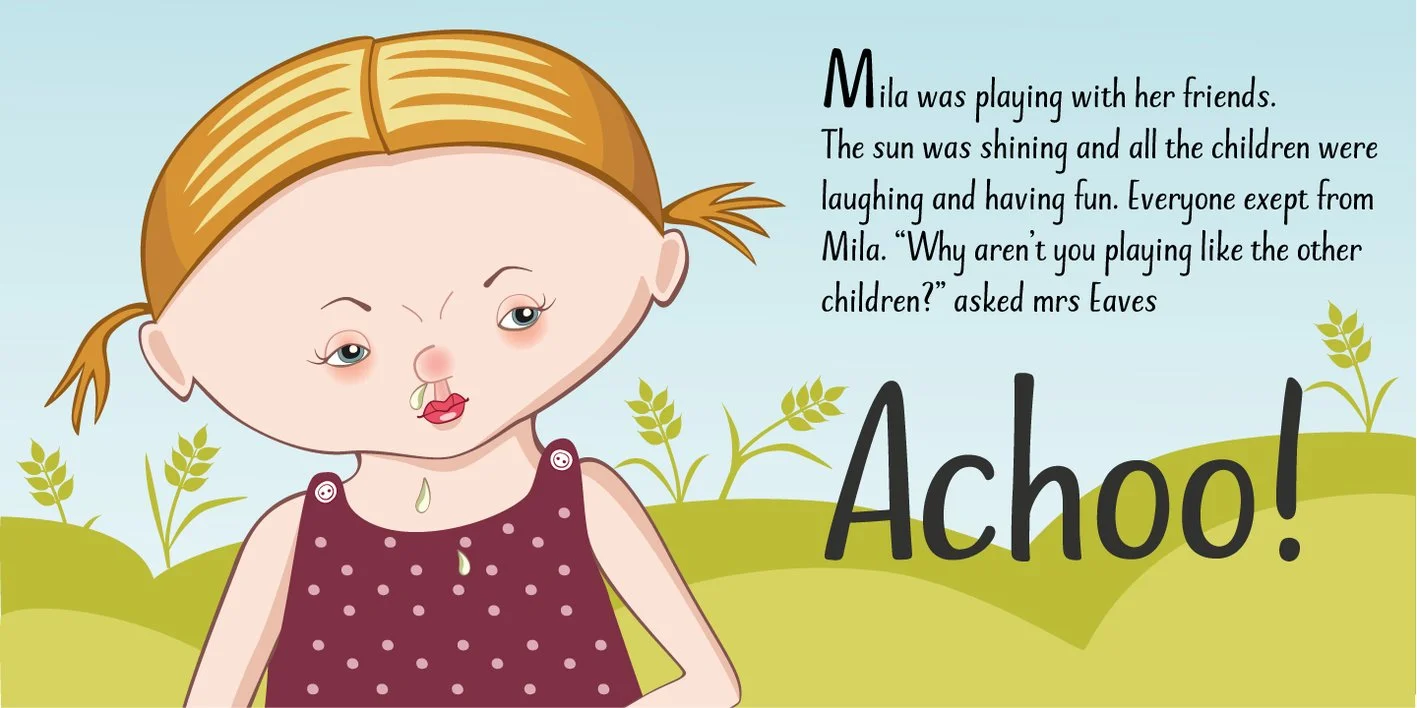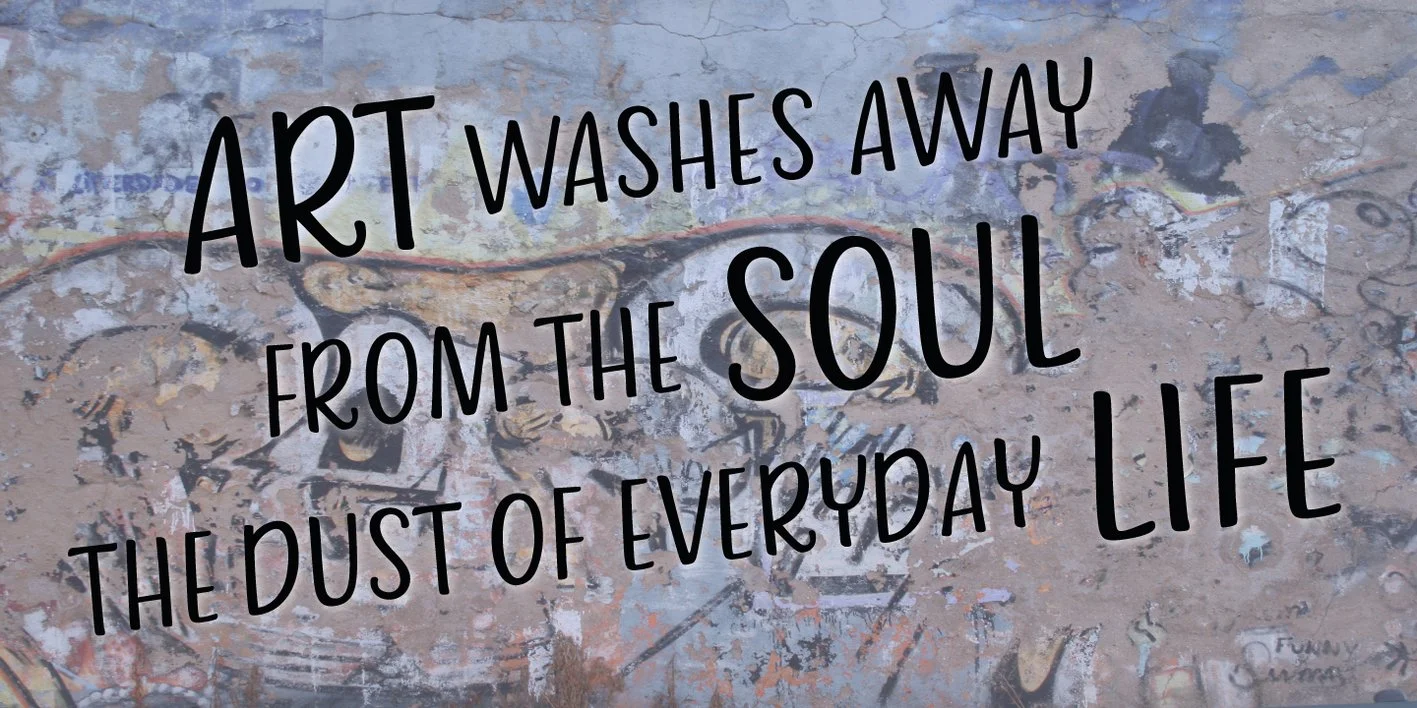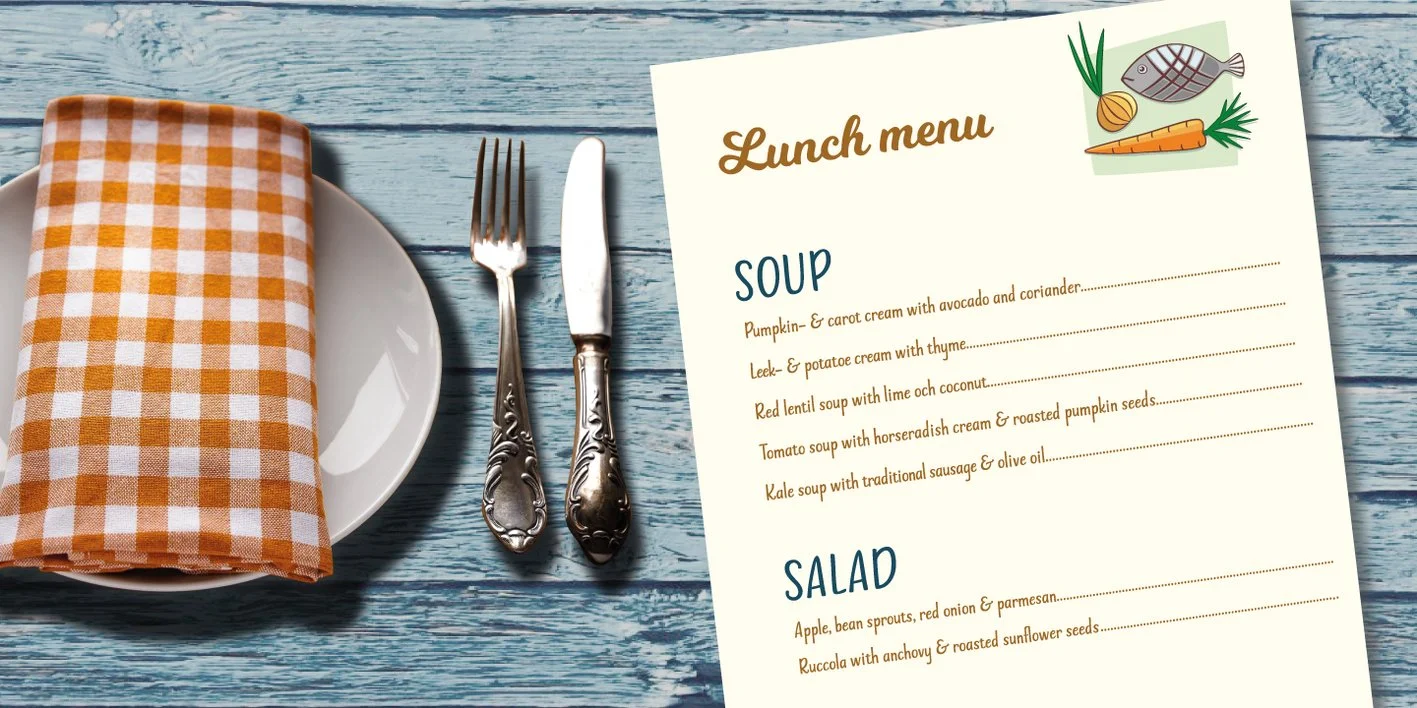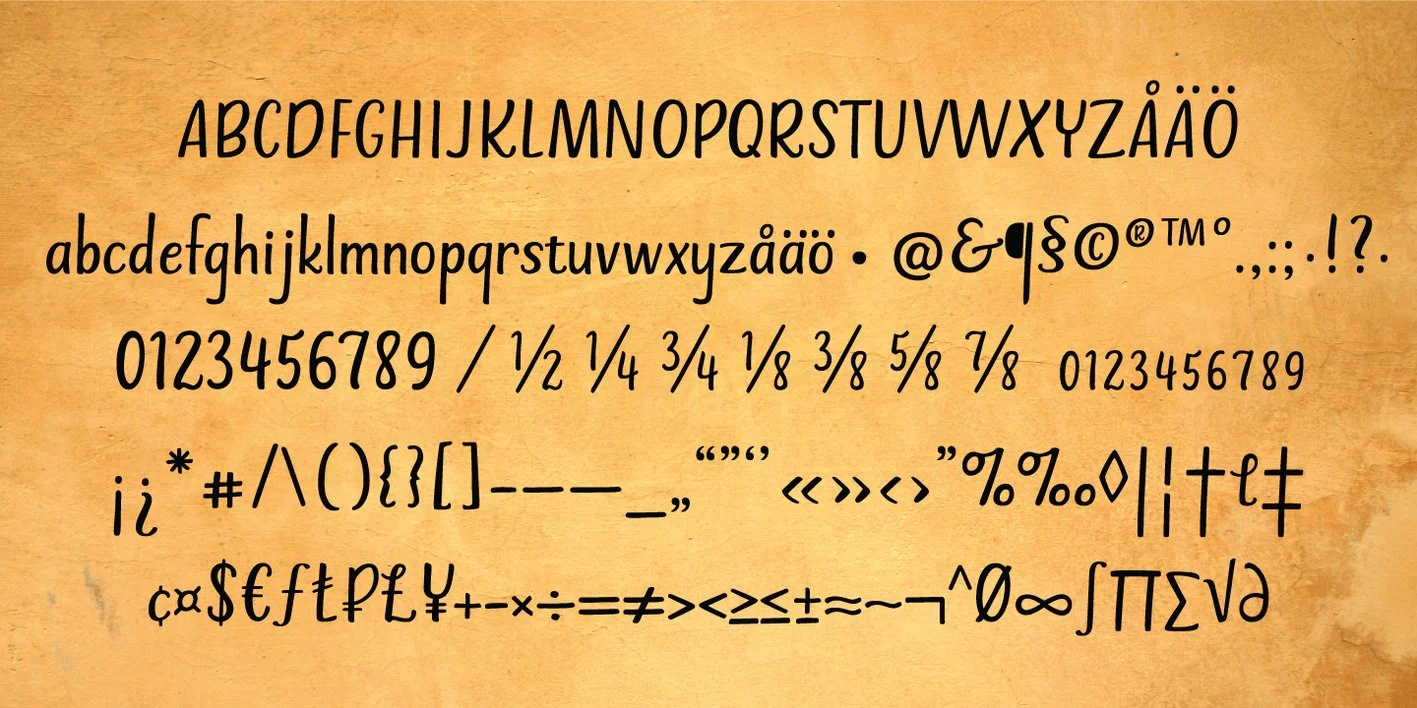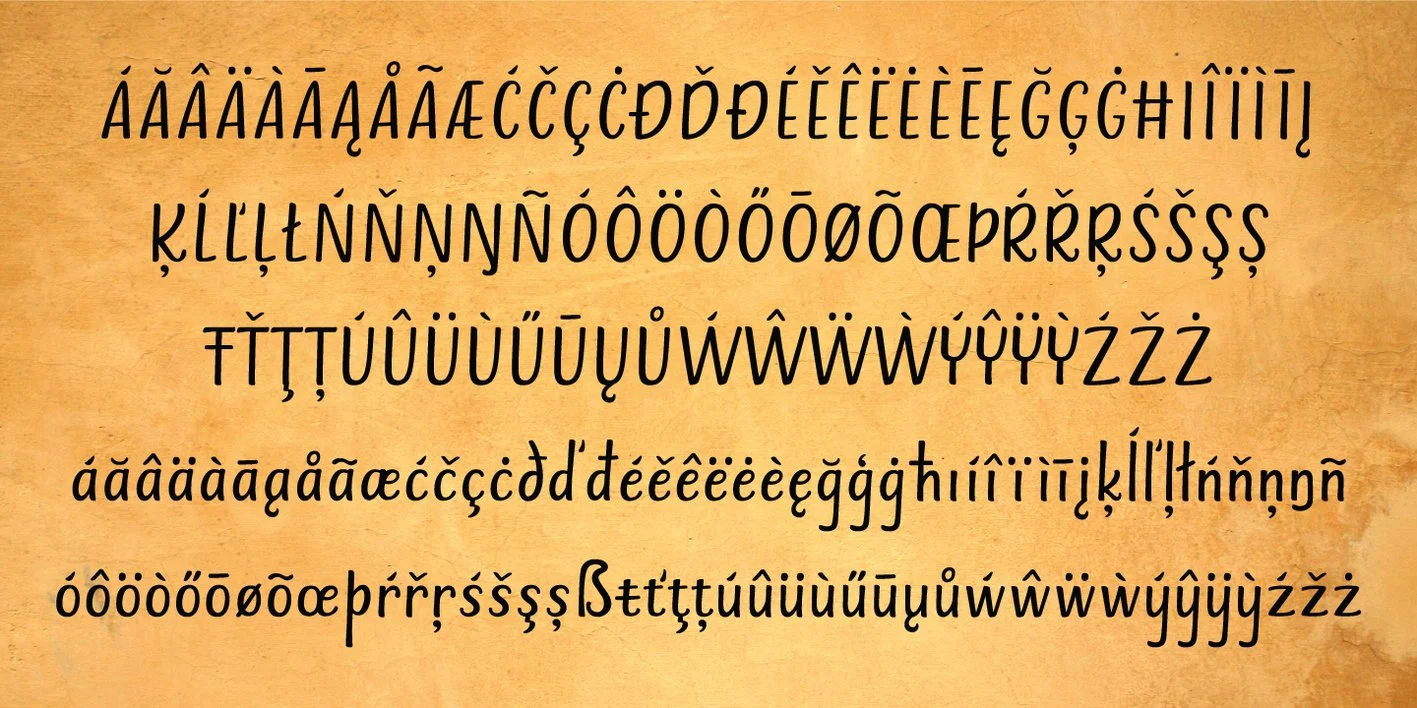
Cerulean Love Font
A good typeface communicates tone before a single word is read. Cerulean Love achieves this through controlled contrast that rewards close inspection. The typeface brings a versatile sensibility to a broad range of creative disciplines, with distinctive character without sacrificing readability that holds up whether the work is print-first or screen-first.
In practice, Cerulean Love proves particularly effective for poster creation, editorial layouts, web design, logo design, annual reports. Designers reaching for it find that the type decisions feel resolved rather than laboured — a useful quality when client timelines are tight.
The range of applications extends to environmental graphics, brand identity systems, advertising campaigns, packaging design. That breadth is deliberate: the proportions and spacing were stress-tested across a wide range of mock briefs before the typeface was finalised.
Pairing Cerulean Love with a contrasting serif or a neutral grotesque gives mixed-format layouts a clear visual grammar without requiring constant size adjustments to establish hierarchy.
Independent studios handling packaging and editorial work find Cerulean Love a reliable choice for projects that demand both personality and restraint. The design avoids the self-conscious quirkiness that dates quickly, settling instead for considered distinctiveness that holds up over time.